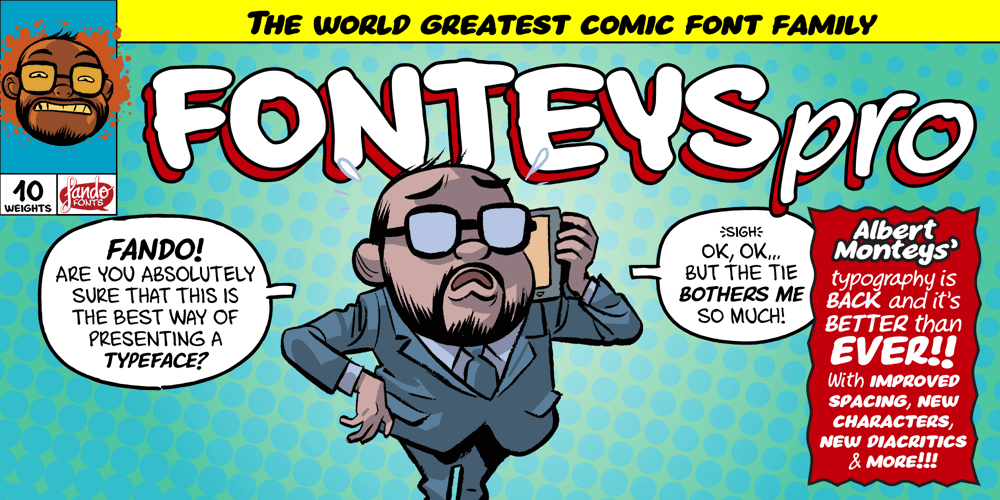
Fonteys Pro
Fonteys Pro font
Fonteys Pro Font Family was designed by Fernando Fuentes and published by Fando Fonts. Fonteys Pro contains 10 styles and family package options. FonteysPRO is the new and improve version of the Fonteys font family by Fernando Fuentes and the Eysner award nominated Albert Monteys.It is an informal font family designed to letter comics. With a unique handwritting style is also perfect when you need an informal typography. FonteysPRO has a lot of variants for each letter to enhance the handwriting feeling. It’s feels like actual hand lettering. And, if were not enough, the Fonteys supports almost all latin languages, cylliric, greek, and even vietnamese.Its early version Fonteys, available at “pay what you want” in the designer webpage, has became in a success in the Indie Comic scene from Spain. Now with the PRO version FonteysPRO will surely become in one of the most used comic books typographies in the world. (In our modest opinion, of course)